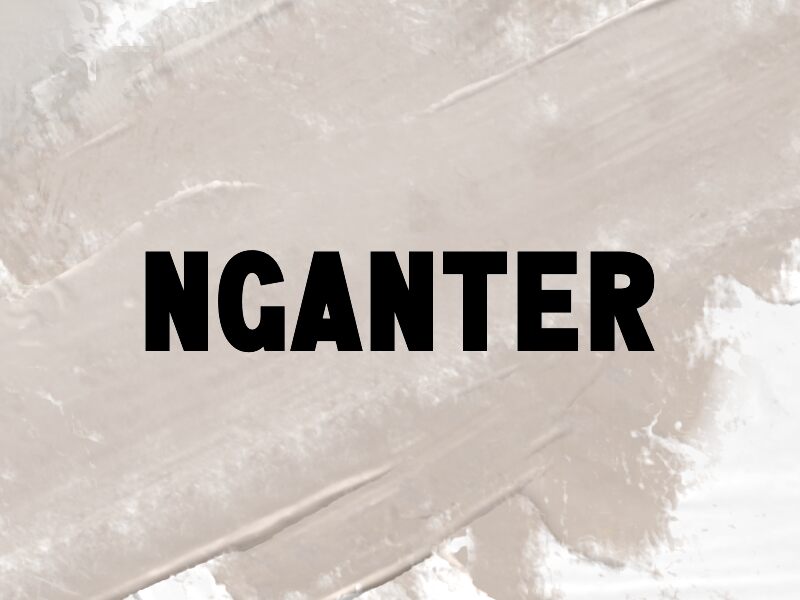
NGANTER
Nganter font by wep is a free sans serif typeface with a chunky, soft-edged build that instantly feels friendly and approachable. Its bold strokes, tight curves, and slightly compressed shapes give text a playful punch without losing legibility, so it grabs attention while still reading clean and fast. There’s a pleasing, almost “puffed” weight to the letters that makes them feel tactile on the screen, like cut-out shapes pressed in thick ink.
Using Nganter, you can bring warmth and character to kids’ branding, casual logos, packaging, posters, social graphics, and bold website headers. This free font shines at larger sizes where its rounded forms and dense texture can really be seen. For longer supporting copy, pair it with a simple, light-weight geometric sans and let Nganter handle the loud, friendly headlines.